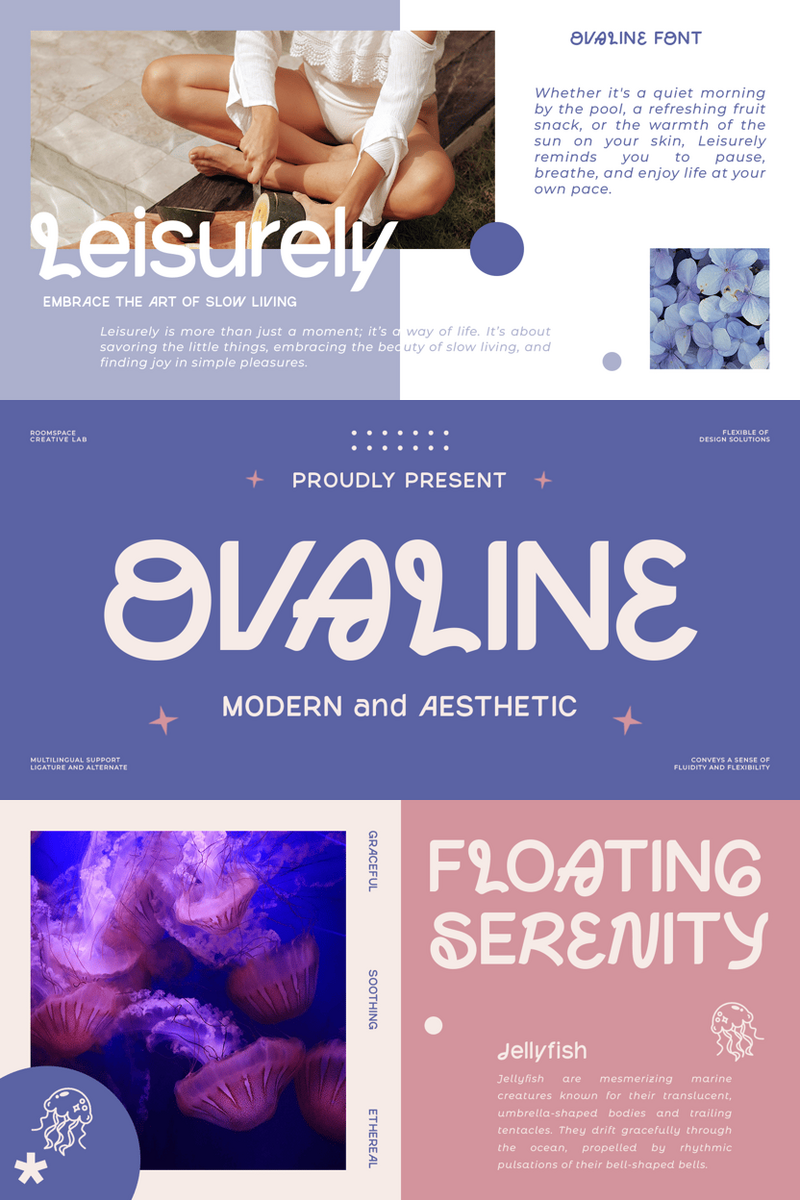
Ovaline: Curating Distinction – Crafting Illustrious Educational Logos with Timeless Sophistication
In the esteemed halls of academia and the dynamic spaces of digital learning, a singular presence emerges to define distinction. Ovaline is not merely a font; it is a meticulously sculpted statement of timeless elegance, a whispered promise of heritage etched into every character. Its forms are a symphony of classic proportions and contemporary clarity, evoking a sense of gravitas and an inviting warmth simultaneously.
For educational and learning platforms, the challenge is profound: to convey not just knowledge, but authority, aspiration, and an unwavering commitment to excellence. The Ovaline font addresses this quest with unparalleled grace. Imagine your institution's prospectus, not just read, but experienced as an artifact of prestige. Envision your online modules, no longer merely functional, but infused with an aesthetic gravitas that elevates the learning journey itself.
The Ovaline font bestows a visual language that speaks volumes before a single word is absorbed. It asserts your brand as one built on enduring values, intellectual rigor, and an uncompromising dedication to quality. This is the timeless elegance that transforms a university seal into a cherished emblem, a course certificate into a testament of achievement, and a digital interface into an intuitive realm of discovery. Ovaline is the silent curator of your institution's visual legacy.
Beyond its inherent beauty, Ovaline offers concrete advantages. Its exceptional readability ensures that complex theories are absorbed with ease, and its sophisticated visual appeal commands respect, fostering trust and an emotional connection with learners and stakeholders alike. Consider its power in logo design: the balanced strength and refined contours of Ovaline font make it a perfect foundation for iconic educational logos that convey both tradition and innovation. Whether for a venerable university, a cutting-edge online academy, a professional development institute, or a bespoke executive education program, an Ovaline-crafted logo becomes a timeless signature – a mark of intellectual distinction and enduring quality.
From the bespoke typography of an academic journal's cover to the seamless integration within an intuitive e-learning platform’s UI, or the stately impression of a graduation announcement, the Ovaline font lends an air of curated excellence. It elevates course materials, annual reports, campus signage, and all digital communications, ensuring your message is not just seen, but deeply felt.
Ovaline: Defining Distinction, Cultivating Legacies.